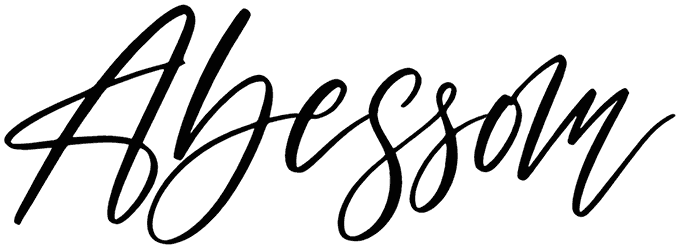
Abessom Font
You don’t need a lot of effort to create elegant and personal typography for your brochure or letter. Simply, use an Abessom calligraphy and handwriting font to create an artistic and beautiful choice for your typography with your unique curly design.
You get this signature font with a full set of characters, and if that’s not enough, you’ll find two styles that are up to you to decide which one is best for your project.